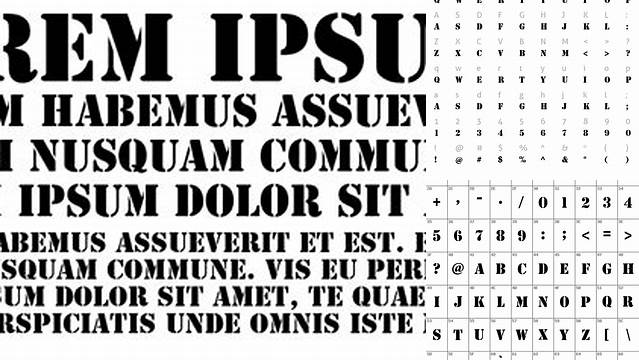
Free Stencil Std Bold Font: Download & Usage Guide
Hey guys! Are you on the hunt for that perfect Stencil Std Bold font to make your designs pop? You've landed in the right spot! In this article, we’re diving deep into everything you need to know about this classic typeface, including where you can snag it for free and how to use it effectively in your projects. Let's get started and explore the world of Stencil Std Bold! This iconic font is perfect for adding a touch of industrial chic or military-inspired flair to your designs. Whether you’re working on a poster, a logo, or even just some cool social media graphics, Stencil Std Bold can give your work that extra edge. We’ll explore its history, characteristics, and the best ways to use it, ensuring you get the most out of this versatile font. We'll also cover the legal aspects of downloading fonts, so you can be sure you're using Stencil Std Bold in a way that respects copyright and licensing agreements. After all, nobody wants a legal headache over a font! Plus, we’ll point you towards some reliable resources where you can download the font without worrying about viruses or malware. So, stick around, and let’s make sure your next design project is a knockout with the help of Stencil Std Bold! From understanding its unique features to finding the best download sources, this guide has got you covered. Let’s jump in and unlock the potential of this amazing font!
What Makes Stencil Std Bold So Special?
So, what’s the big deal about Stencil Std Bold, you ask? Well, this font has a unique and recognizable look that sets it apart from the crowd. The defining feature of Stencil fonts is, of course, the breaks in the letterforms – those gaps that make it look like the letters were cut out using a stencil. This design gives Stencil Std Bold a rugged, industrial, and slightly militaristic vibe, which makes it perfect for a wide range of applications. Think about it – you've probably seen fonts like this used on posters, signage, and even military equipment. That’s because the stencil design is not only visually striking but also practical. Historically, stencil fonts were used for marking crates, boxes, and other items because they were easy to reproduce and read, even when applied quickly or on rough surfaces. Stencil Std Bold takes this historical function and gives it a modern twist. Its bold weight ensures that the font stands out, even at a distance or in busy designs. The clean, geometric shapes of the letters make it legible and versatile. This means you can use it for headlines, subheadings, and even short blocks of text. But remember, because of its strong personality, Stencil Std Bold is best used sparingly. Overusing it can make your design feel overwhelming or monotonous. Instead, try using it as an accent or to highlight key elements in your design. Pair it with a simpler, more neutral font for body text to create a balanced and professional look. We'll talk more about font pairing later on, but for now, just keep in mind that contrast is your friend. Another thing that makes Stencil Std Bold special is its timeless appeal. While it has a distinct vintage feel, it also looks modern and relevant. This makes it a great choice for projects that need to convey a sense of history or tradition, as well as those that aim for a more contemporary aesthetic. Whether you're designing a logo for a craft brewery, a poster for a music festival, or a website for a historical museum, Stencil Std Bold can add that perfect touch of character and authenticity. Its versatility, combined with its bold and striking appearance, is what truly makes Stencil Std Bold a standout choice for designers.
How to Use Stencil Std Bold in Your Designs
Now that you've got your hands on Stencil Std Bold, let's talk about how to use it effectively in your designs. This font is a powerhouse, but like any strong design element, it needs to be used thoughtfully. Overdoing it can lead to a cluttered or overwhelming look, while using it strategically can create a striking visual impact. One of the best ways to leverage Stencil Std Bold is for headlines and titles. Its bold weight and distinctive stencil design command attention, making it perfect for grabbing the viewer's eye. Think about using it for posters, flyers, or website headers where you want to make a strong statement. The font's industrial and slightly edgy feel can add a touch of character and personality to your text. However, keep in mind that Stencil Std Bold is not ideal for long blocks of text. The breaks in the letterforms can make it difficult to read at smaller sizes, especially in body text. Instead, reserve it for shorter phrases or key words that you want to emphasize. When it comes to font pairing, contrast is key. Stencil Std Bold works best when paired with a simpler, more neutral font for body text. A clean sans-serif font like Helvetica or Arial can provide a nice contrast, allowing the Stencil font to stand out without overwhelming the design. Alternatively, you could pair it with a classic serif font like Times New Roman or Garamond for a more traditional look. The key is to choose a font that complements Stencil Std Bold without competing with it. Color is another important consideration when using Stencil Std Bold. The font's bold design looks fantastic in strong, contrasting colors. Think about using it in white against a dark background, or in a bright color against a neutral background. This will help the font pop and make your message even more impactful. You can also experiment with different textures and backgrounds to enhance the font's visual appeal. A textured background, such as a distressed wood or metal texture, can complement the font's industrial feel and create a cohesive look. In terms of specific applications, Stencil Std Bold is a great choice for designs that need to convey a sense of strength, durability, or history. It's perfect for branding projects related to construction, manufacturing, or military themes. It can also be used effectively in designs for music festivals, art exhibitions, or other events that want to project a bold and edgy image. Ultimately, the best way to learn how to use Stencil Std Bold is to experiment and see what works best for your specific project. Don't be afraid to try different combinations of fonts, colors, and textures until you achieve the look you're after. With a little bit of creativity and careful planning, you can harness the power of Stencil Std Bold to create truly stunning designs.
Common Mistakes to Avoid When Using Stencil Fonts
Okay, let's chat about some common pitfalls to sidestep when you're working with Stencil fonts like Stencil Std Bold. These fonts are fantastic, but they come with their own set of design considerations. Avoiding these mistakes will help you make the most of your Stencil font and ensure your designs look polished and professional. First up, let's talk about overusing the font. Stencil fonts, by their very nature, are attention-grabbing. Their bold, broken letterforms make a strong statement, but that strength can quickly become overwhelming if you use them too much. Imagine a poster where every single word is in Stencil Std Bold – it would be hard to read and visually exhausting. The key is to use Stencil fonts sparingly, as accent elements rather than the main text. Reserve them for headlines, titles, or key phrases that you want to stand out. For body text, opt for a simpler, more legible font. This brings us to the next common mistake: using Stencil fonts for long paragraphs. The breaks in the letters that make Stencil fonts so distinctive can also make them difficult to read in large blocks of text. Your readers will have to work harder to decipher the words, which can lead to a frustrating experience. Avoid this by sticking to shorter bursts of text when using Stencil Std Bold. Think headlines, subheadings, or short captions. Another pitfall to watch out for is poor font pairing. Stencil fonts have a strong personality, so they need to be paired with fonts that complement them without competing for attention. Pairing Stencil Std Bold with another equally bold or decorative font can create a cluttered and chaotic look. Instead, opt for a clean and simple font for the majority of your text. A classic sans-serif font like Helvetica or Arial, or a straightforward serif font like Times New Roman, can provide a nice contrast and allow the Stencil font to shine. Color choices can also make or break your Stencil font design. Because Stencil Std Bold is so bold, it works best with high-contrast color schemes. Using it in a light color against a dark background, or vice versa, can make the font pop. Avoid using subtle color combinations that can make the font look washed out or difficult to read. Finally, be mindful of the overall tone and context of your design. Stencil fonts have a specific feel – industrial, military, or vintage – so they may not be appropriate for every project. Using Stencil Std Bold in a design that calls for a more elegant or delicate look can create a jarring effect. Think about the message you're trying to convey and choose a font that aligns with that message. By being aware of these common mistakes and taking steps to avoid them, you can use Stencil Std Bold to create designs that are both eye-catching and effective.
Alternatives to Stencil Std Bold
Alright, so maybe Stencil Std Bold isn't exactly what you're looking for. No sweat! There are tons of other awesome stencil fonts out there that can give you a similar vibe with their own unique twist. Exploring these alternatives can help you find the perfect font for your project, whether you need something a little more rugged, modern, or quirky. One popular alternative is Bank Gothic. This font has a similar bold and geometric structure to Stencil Std Bold, but it offers a slightly more streamlined and modern feel. Bank Gothic is a great choice if you want a stencil font that feels strong and industrial without being too overtly militaristic. It's often used in branding for tech companies, fitness studios, and other businesses that want to project a sense of strength and innovation. Another excellent option is Rajdhani Bold. This sans-serif font has a distinct stencil cut in its letters, giving it a contemporary and slightly futuristic look. Rajdhani Bold is highly legible and works well in both headlines and shorter blocks of text. It’s a versatile choice for web design, posters, and branding projects. For a more vintage and distressed feel, consider using a font like Stencil D. This font has a rough, textured appearance that evokes the look of old military stencils. Stencil D is perfect for designs that need a touch of authenticity and history. It’s often used in posters, packaging, and branding for products with a vintage or handcrafted aesthetic. If you’re looking for a stencil font with a more playful and whimsical vibe, check out Army Stencil. This font has a rounded letterform and a slightly irregular stencil cut, giving it a friendly and approachable feel. Army Stencil is a great choice for designs that want to be both bold and fun. It works well in children’s books, posters, and branding for creative businesses. Another fantastic alternative is Bebas Neue. While not strictly a stencil font, Bebas Neue has a tall, narrow sans-serif design that can be easily modified to create a custom stencil effect. This font is incredibly popular and versatile, making it a great choice for a wide range of projects. You can add stencil cuts in your design software or use a pre-made stencil version if you can find one. When exploring alternatives to Stencil Std Bold, think about the overall mood and message you want to convey. Each font has its own unique personality, and the right choice can make a big difference in the success of your design. Don’t be afraid to experiment and try out different options until you find the perfect fit. There's a whole world of stencil fonts out there just waiting to be discovered!
Conclusion: Making the Most of Stencil Std Bold and Beyond
So, there you have it, guys! We've taken a deep dive into the world of Stencil Std Bold, from its unique appeal to where you can find those free downloads and how to use it like a pro. This font is a real powerhouse, perfect for adding that touch of industrial edge or military-inspired flair to your designs. But remember, like any strong design element, it’s all about balance. Use Stencil Std Bold thoughtfully, pair it wisely, and you’ll create visuals that truly pop. We’ve also covered some common mistakes to avoid, like overusing the font or pairing it with something that clashes. Keep those tips in mind, and you’ll steer clear of design disasters. And hey, if Stencil Std Bold isn’t quite the perfect fit for your project, don't sweat it! There’s a whole universe of stencil fonts out there just waiting to be explored. From the modern vibe of Bank Gothic to the vintage feel of Stencil D, there’s a stencil font out there for every mood and message. Remember, the key to great design is experimentation. So, grab these fonts, play around with them, and see what magic you can create. Think about the message you want to send, the tone you want to set, and let your creativity run wild. Whether you’re designing a poster, a logo, a website, or anything in between, the right font can make all the difference. So, go forth and conquer the design world, armed with your newfound knowledge of Stencil Std Bold and its fantastic alternatives. And remember, have fun with it! Design should be a blast, so enjoy the process of bringing your visions to life. With a little bit of know-how and a whole lot of imagination, you’ll be crafting killer designs in no time. Happy designing, guys! We hope this guide has been helpful, and we can’t wait to see what amazing things you create with Stencil Std Bold and beyond. Keep exploring, keep experimenting, and keep pushing those creative boundaries. The world of design is your oyster!